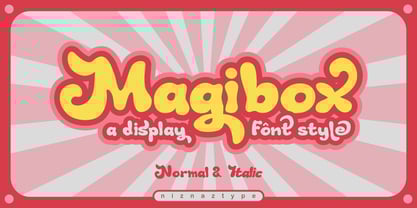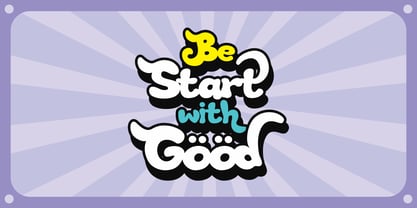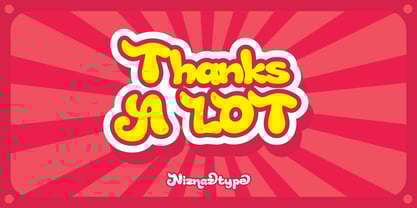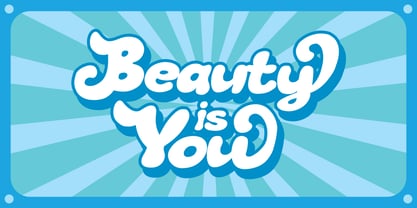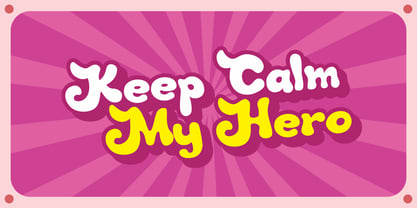
Magibox
von Niznaztype
Die Schriftfamilie Magibox wurde von Muhammad Nazarudin entworfen und von Niznaztype veröffentlicht. Magibox enthält 2 Stile und Familienpaketoptionen.
Introducing display bold font with cute and funny style. It
names Magibox. Simple typeface with unique characters.
Magibox suitable for poster, wallpaper, tittle, t-shirt, headline
and more any other designs.
Graphic design themes like pop art, vintage, fun and kid also
comfortable to use this font in two styles, normal and italic.
Magibox consist of :
- Uppercase
- Lowercase
- Numeral and punctuation
- Multilingual
- Alternate glyph
Magibox will make your design more better and interesting.